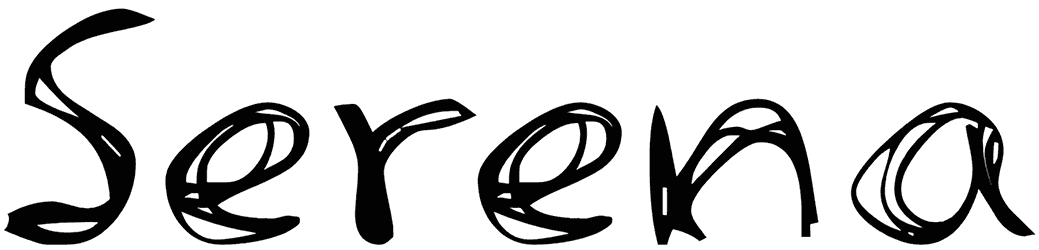
Serena Font
Serena font is made up of crowded and messy marker lines, which can boost your creativity in designing notebooks and scribble books. This trash font can be used as a prototype for many building designs.